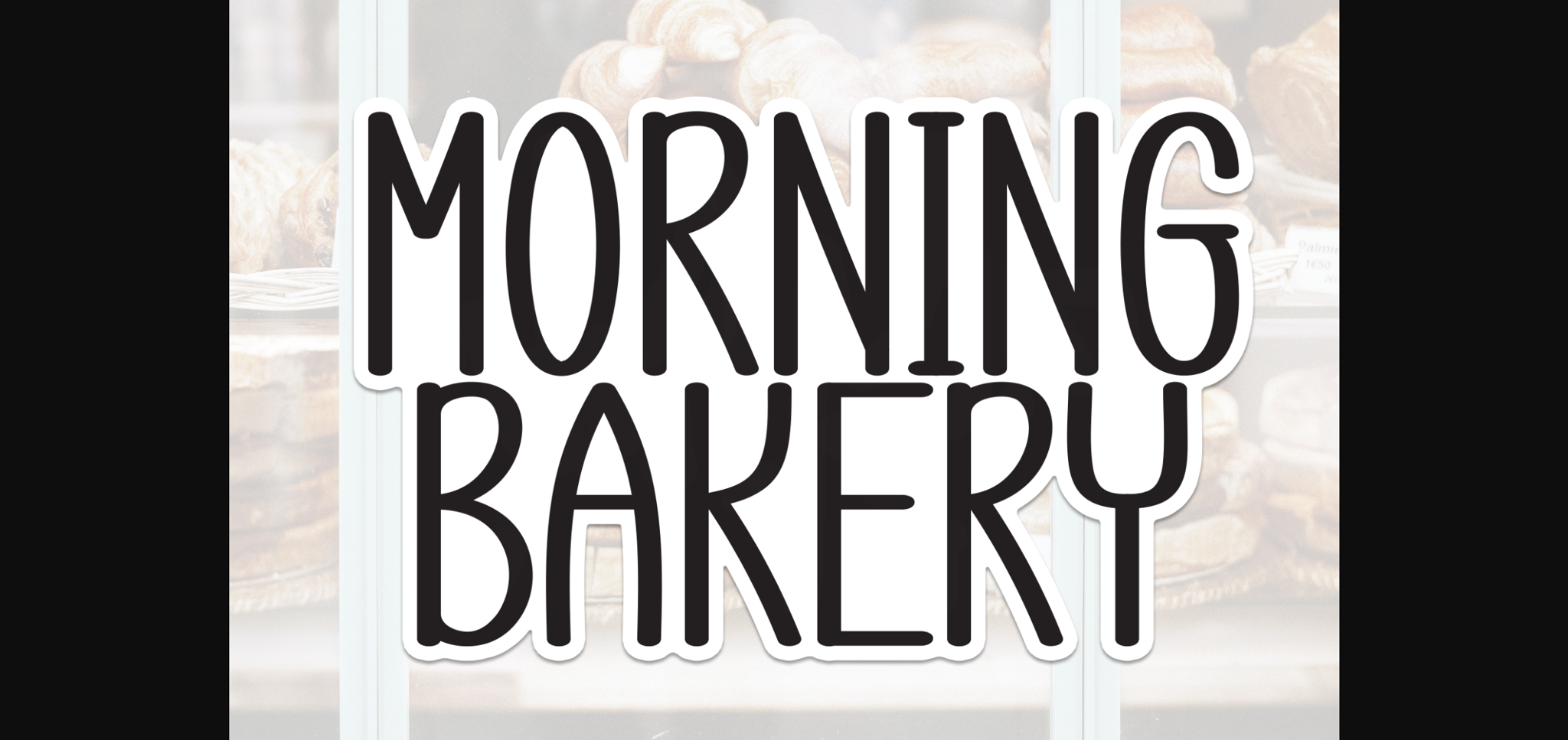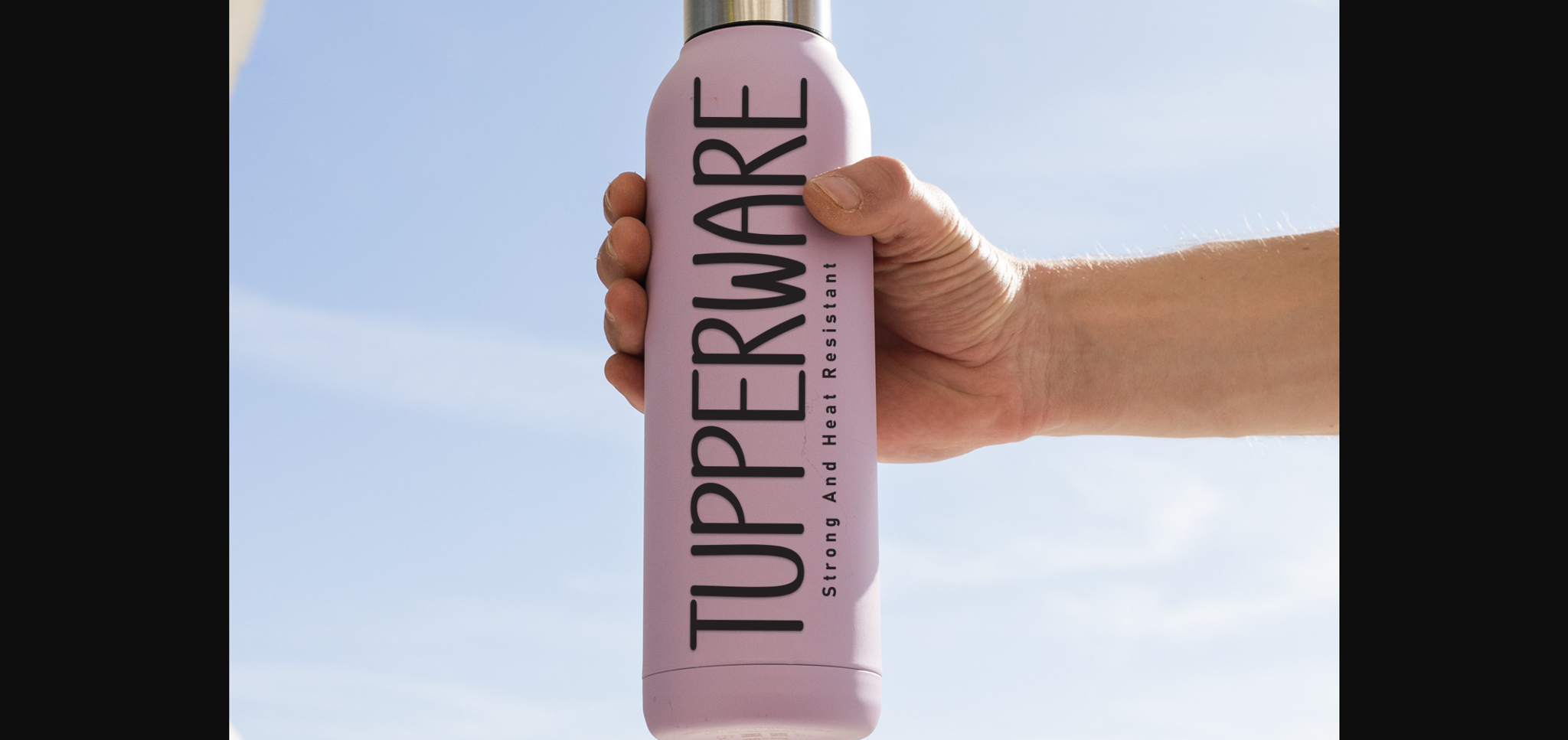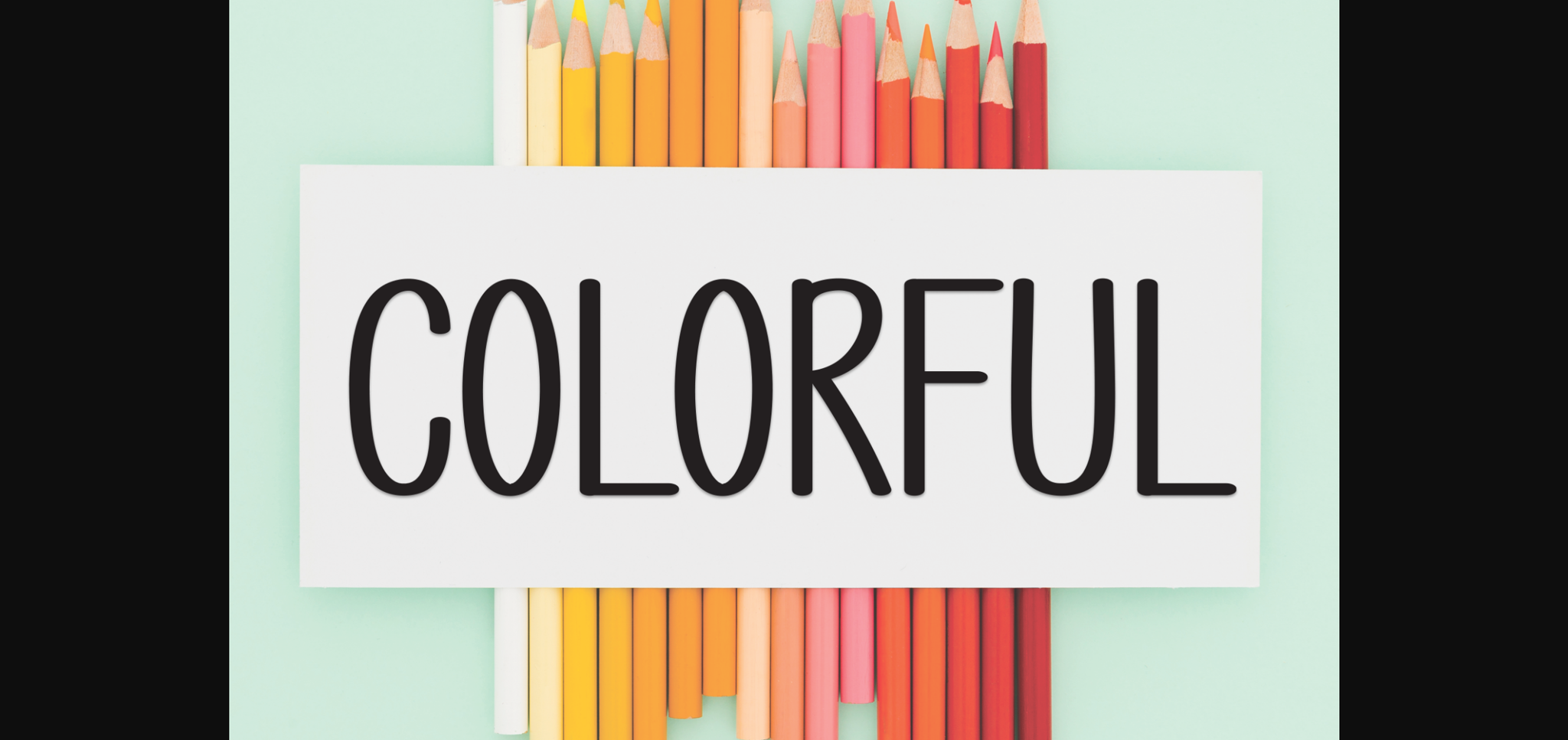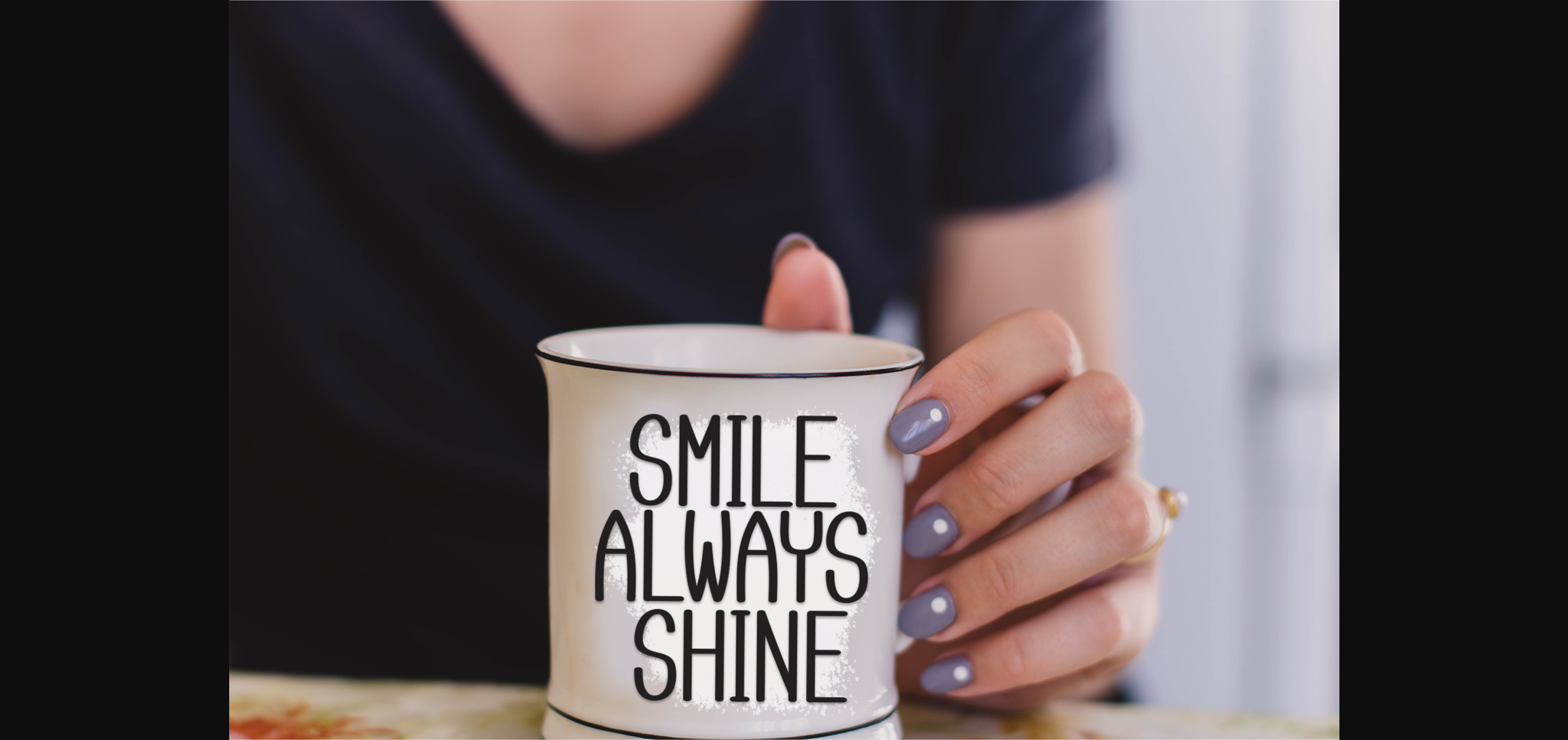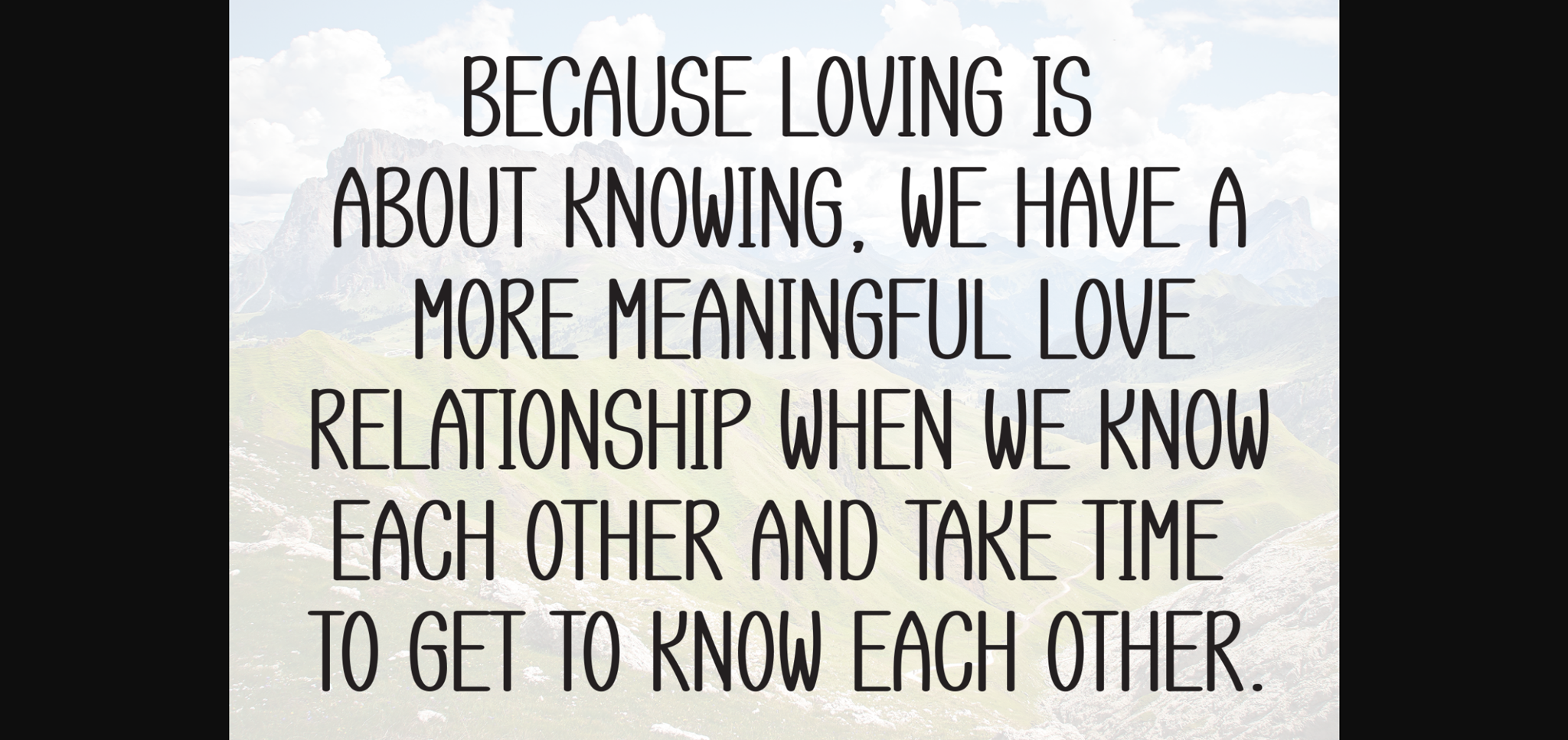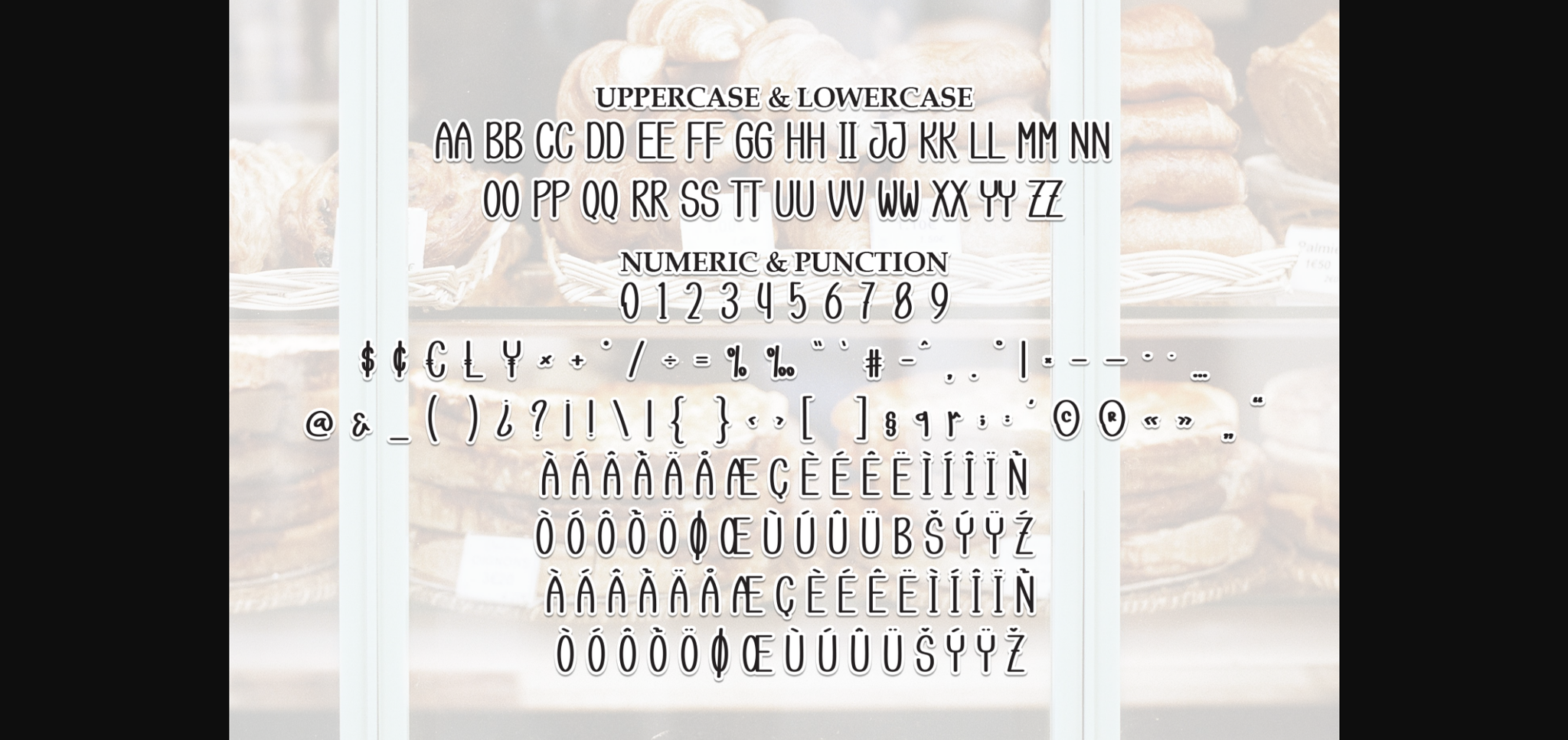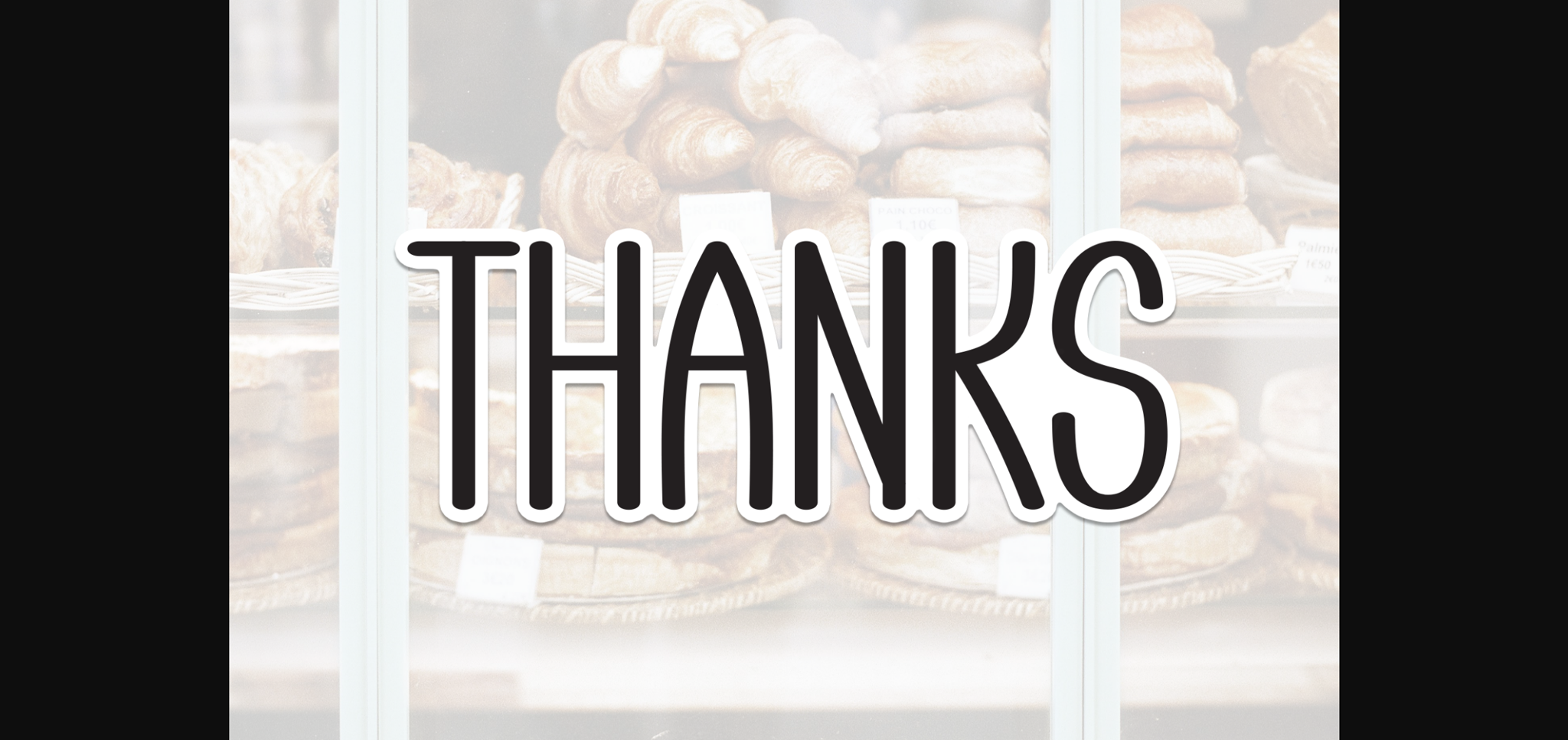
Morning Bakery Font
About Morning Bakery Font
Morning Bakery is a sweet and friendly sans-serif font. Cute yet versatile, this font is ideal for writing wedding invitations, cards, or any other design that might need a lovely touch!